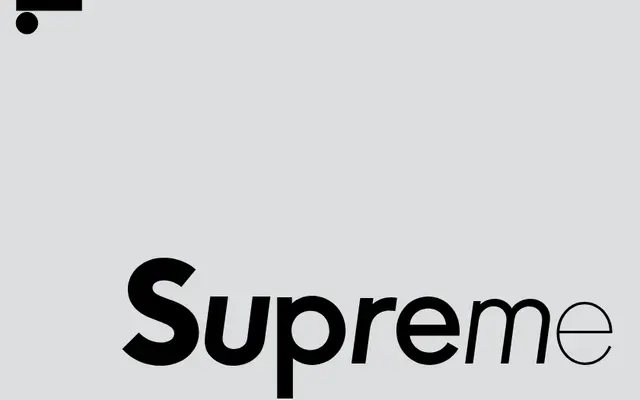
LL Supreme
A from-scratch geometric sans drawn by Arve Båtevik that reconstructs Renner's underlying principles for Futura rather than reviving any existing version of it.
Each weight was drawn separately rather than interpolated, giving each cut its own identity within the family. Båtevik studied Renner's original 1925 drafts and 1927 Bauer metal types to define letterform curves and resolve formal problems across weights, then added historical stylistic alternates as a reference to the source material. The result sits closer to the idea behind Futura than to any particular physical or digital edition of it.
Explicitly constructed from straight lines and circular curves in the tradition of Futura, making it a textbook geometric sans. The foundry frames it as a reconstruction of Renner's underlying principles rather than a revival.